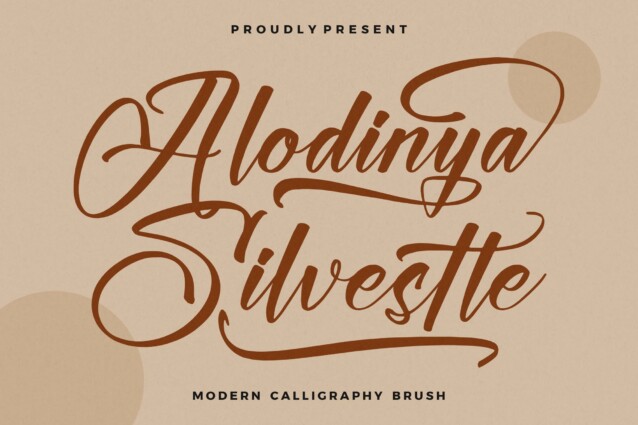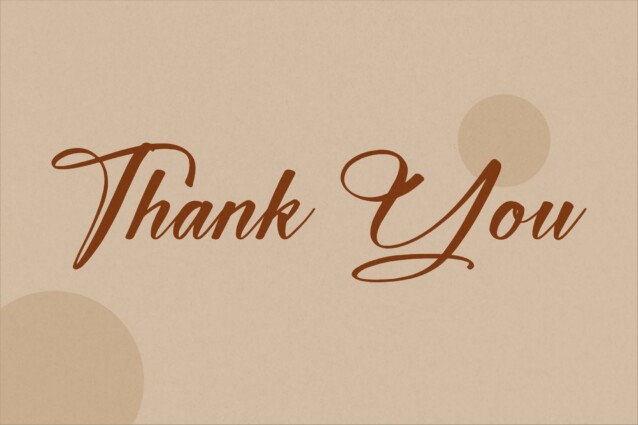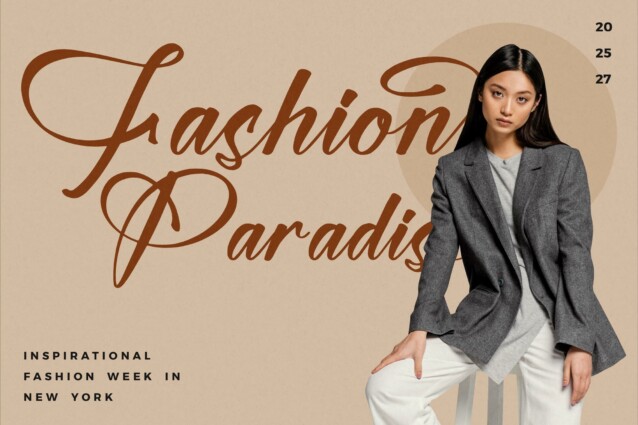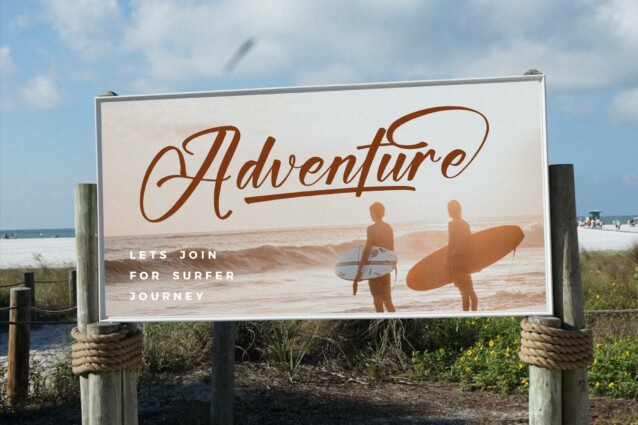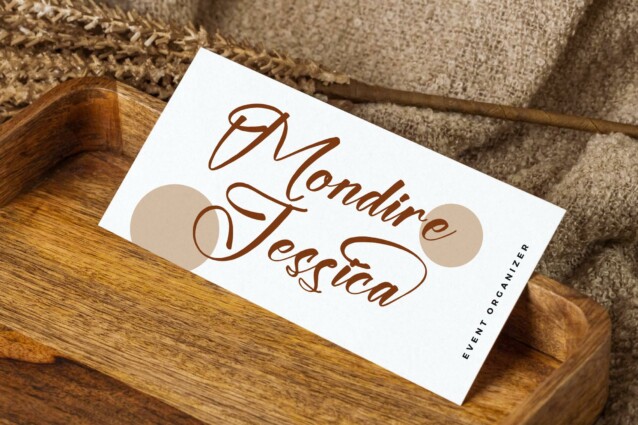
Alodinya Silvestte Script Font
Alodinya Silvestte Script Font – Modern Calligraphy Brush suitable for any projects such as logos, branding projects, homeware designs, product packaging, mugs, quotes, posters, shopping bags, t-shirts, book covers, name cards, invitation cards, greeting cards, labels, photography, watermark, special events, and all your other lovely projects that need a beautiful script taste. This font is PUA encoded which means you can access all of the amazing glyphs and ligatures with ease!